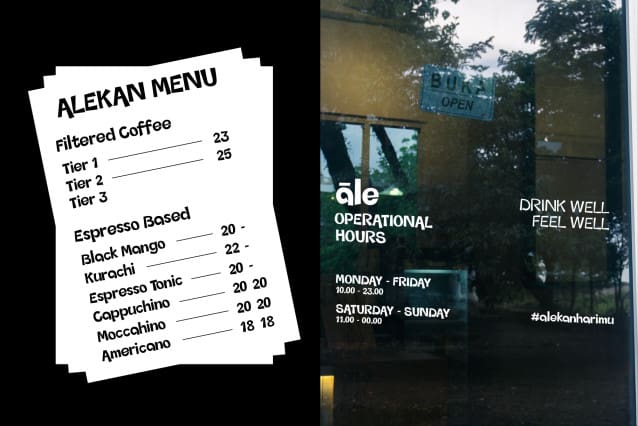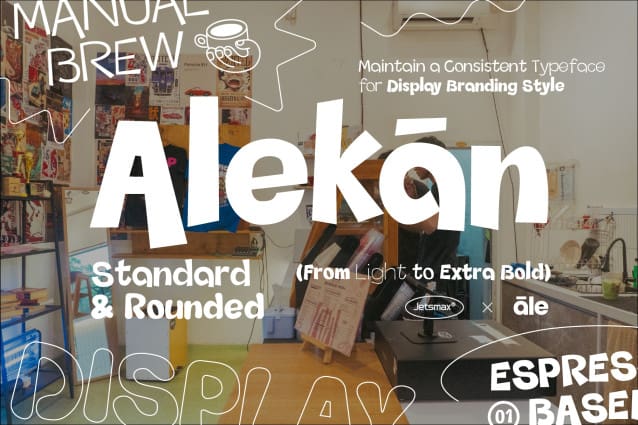
Alekan Font
Alekan Font is a display font project designed to give a fun and playful impression. This font is very suitable for use in various types of designs that require a cheerful and eye-catching appearance, such as designs for posters, branding, packaging, and social media content.